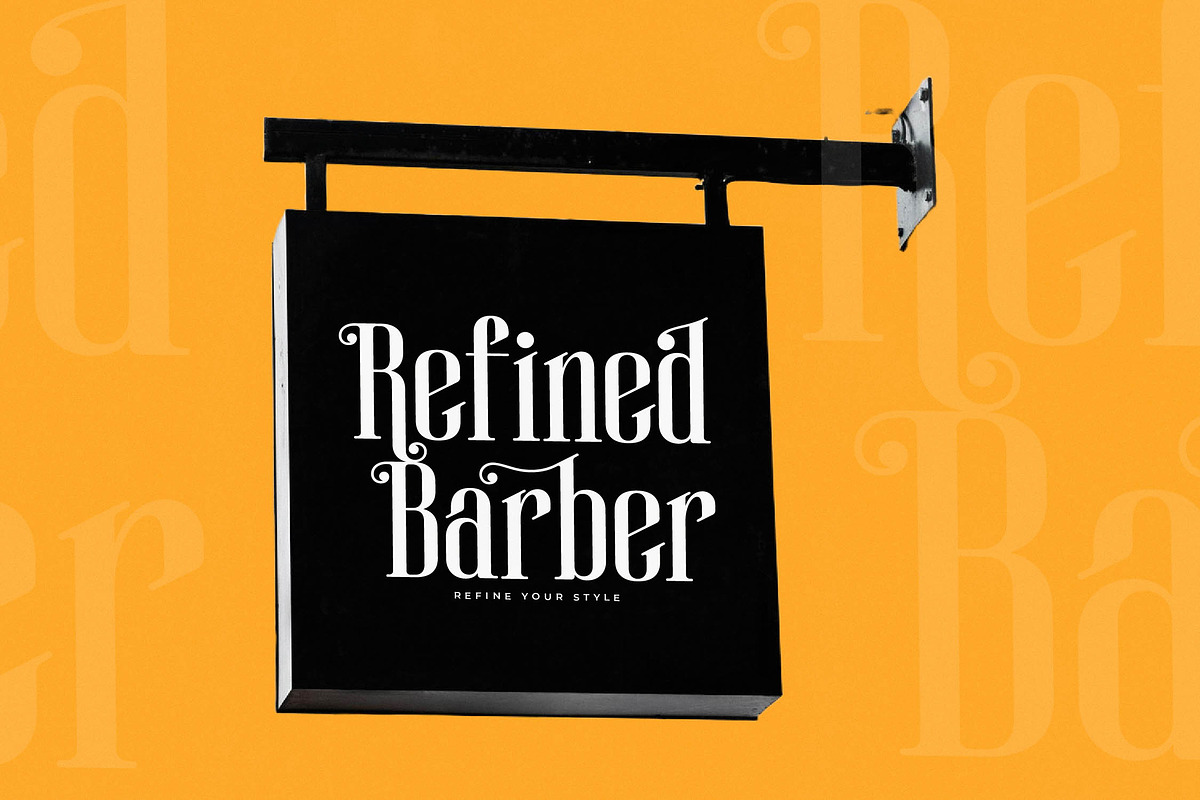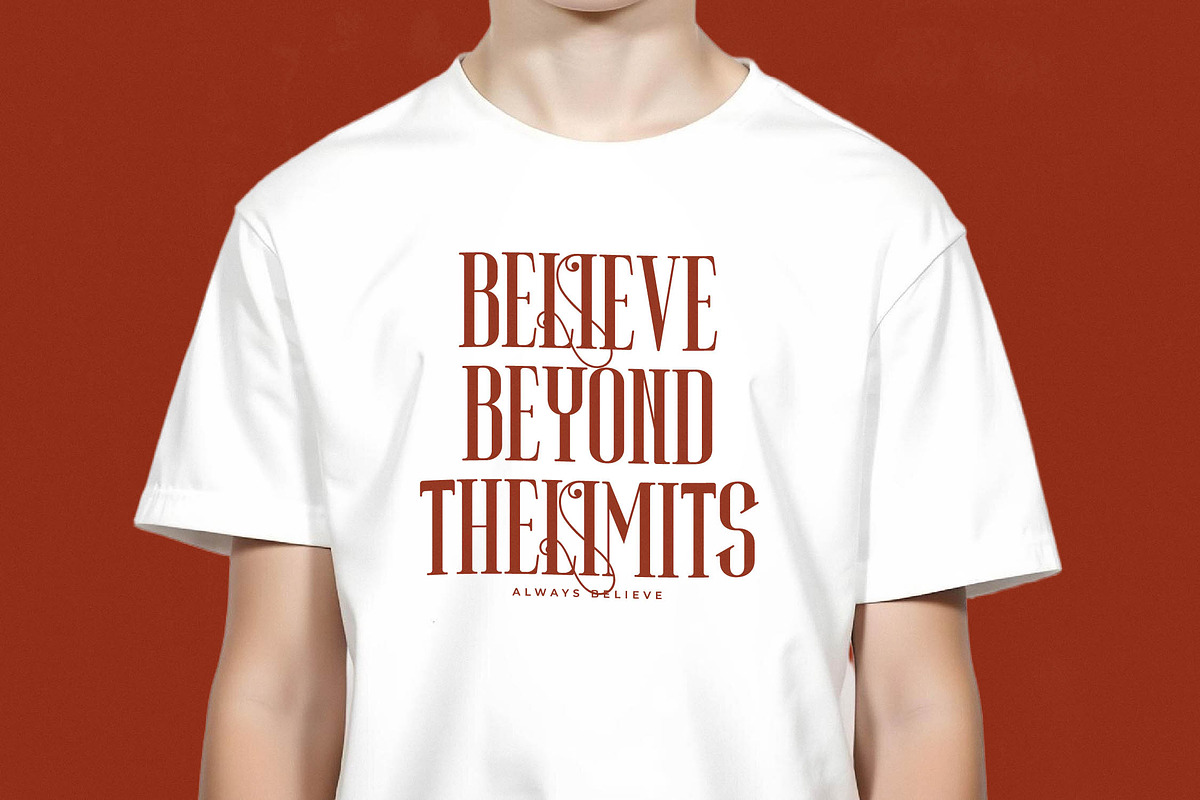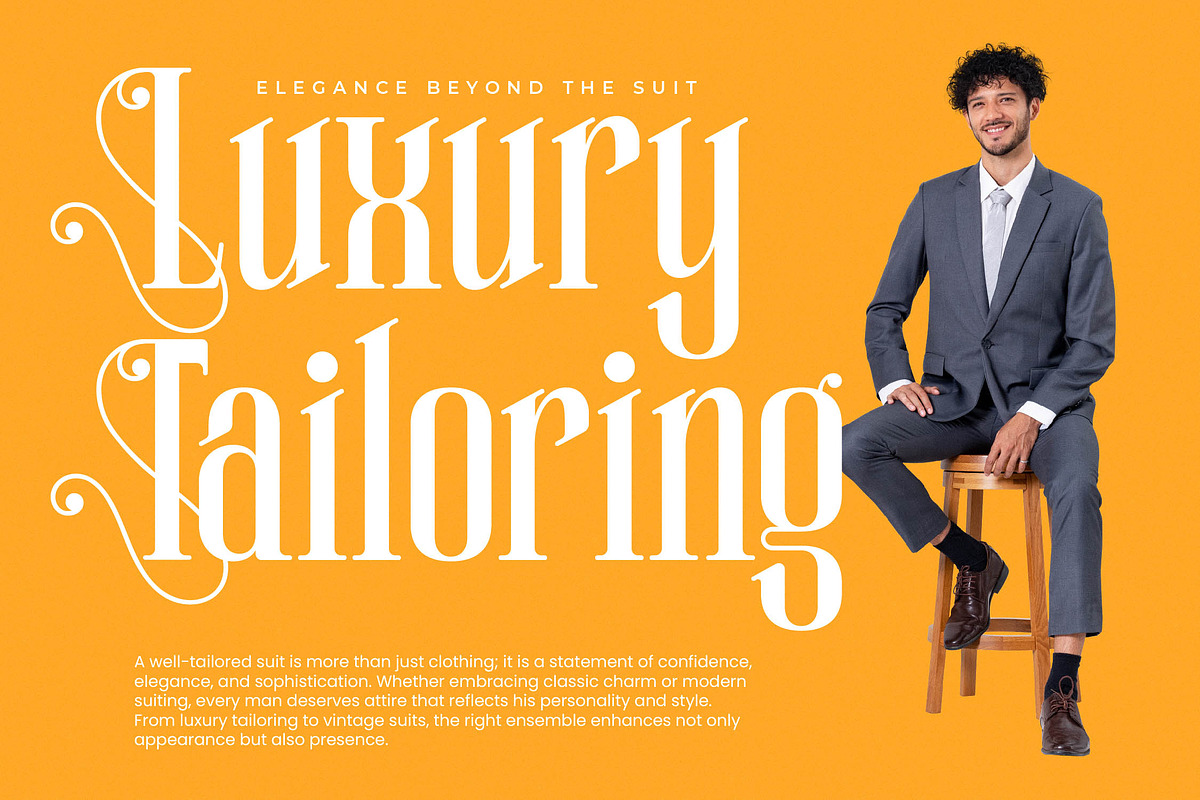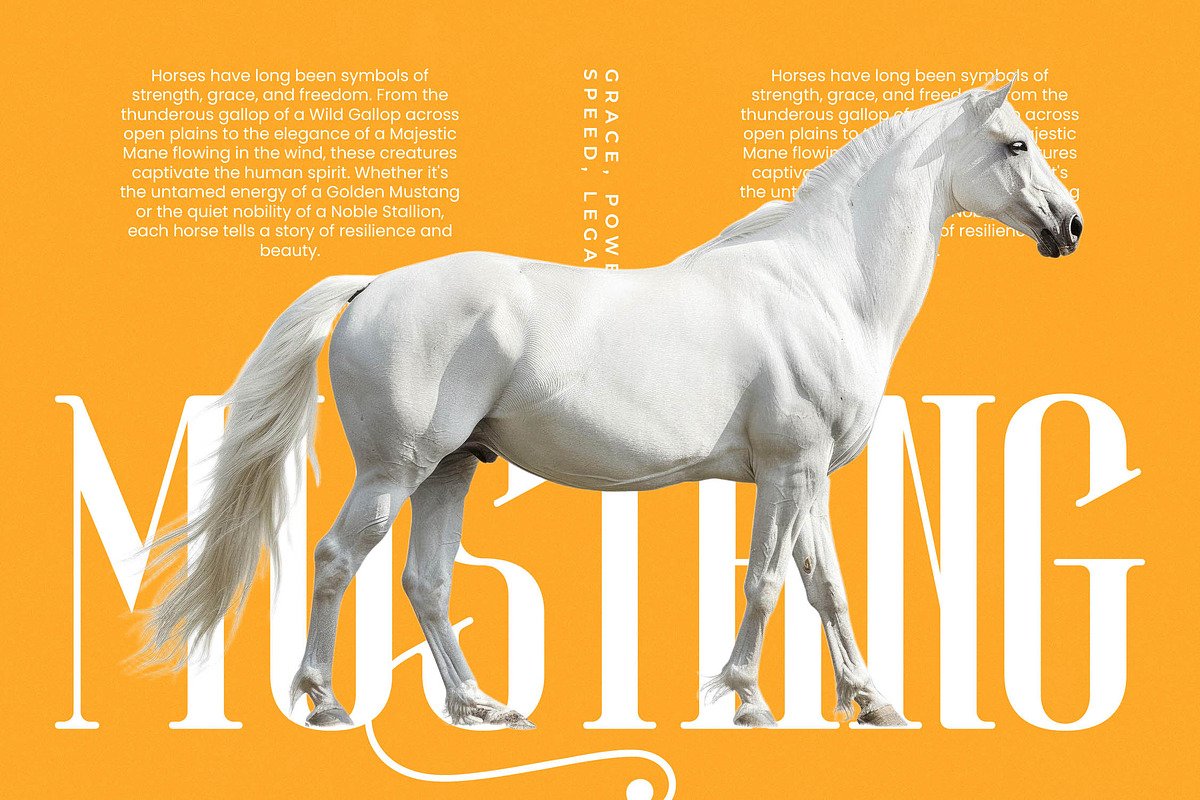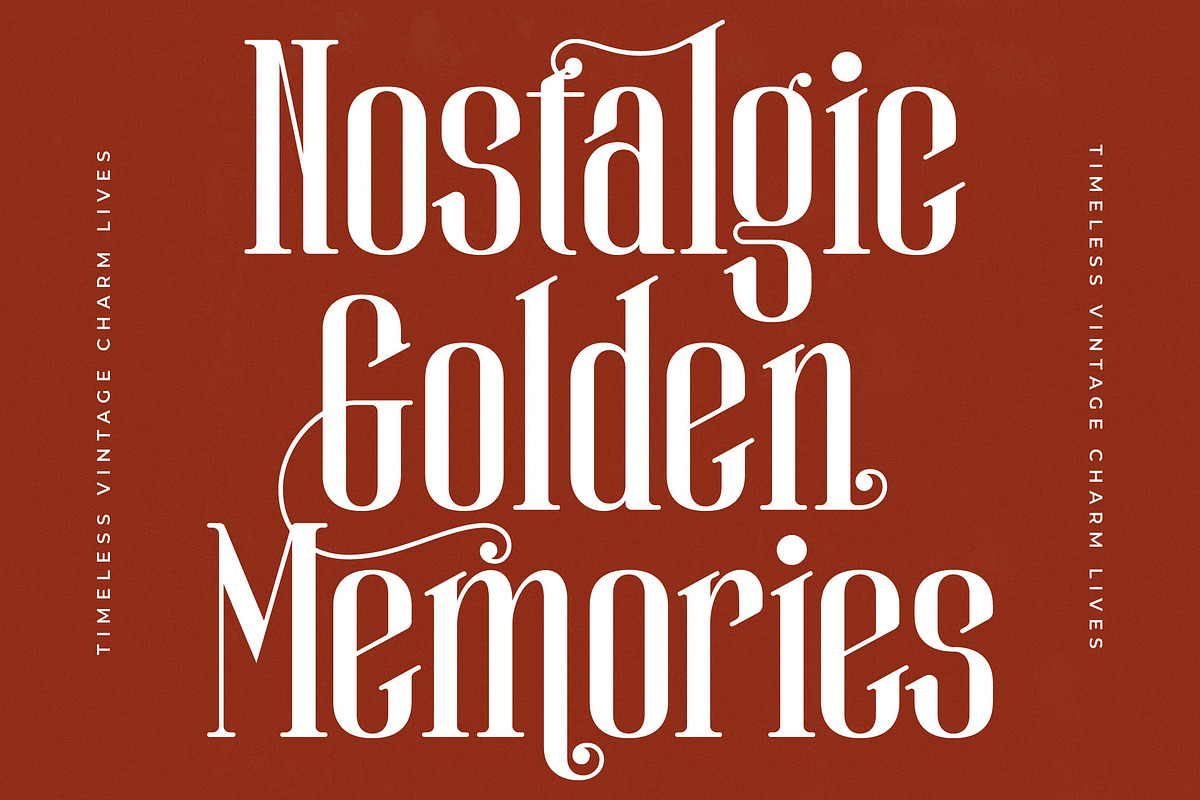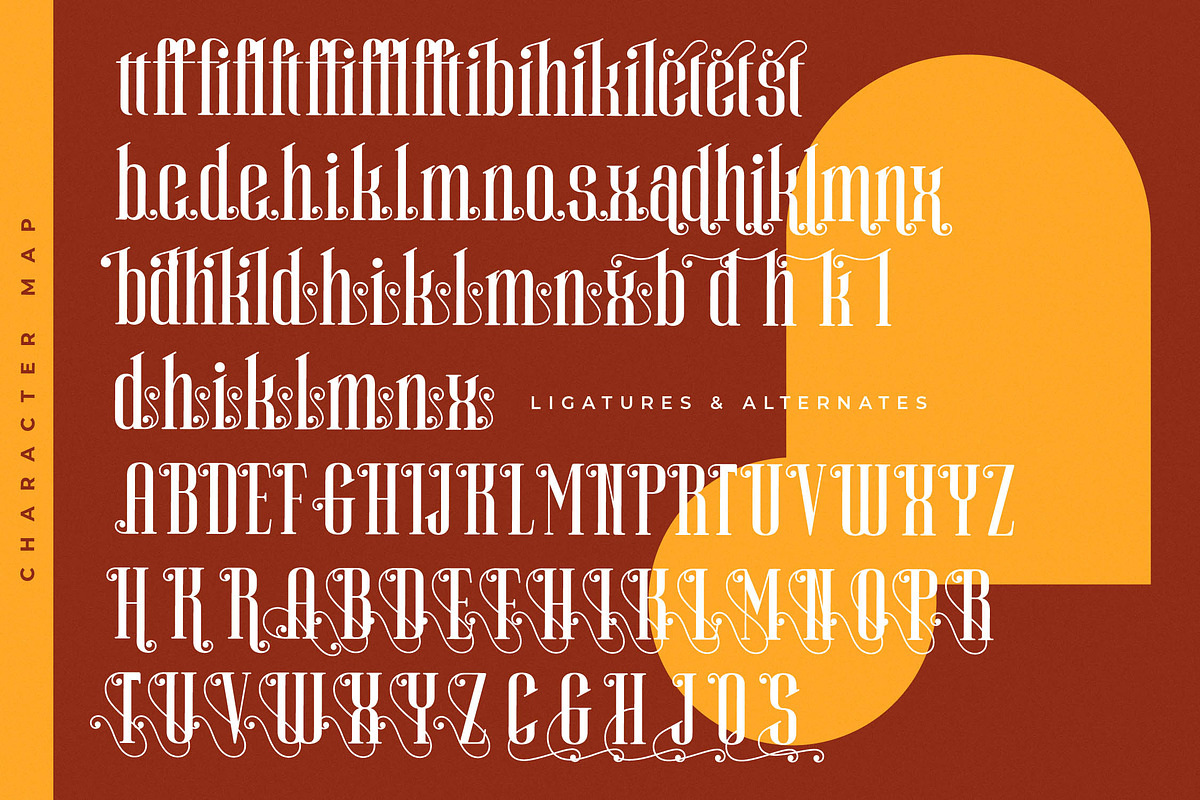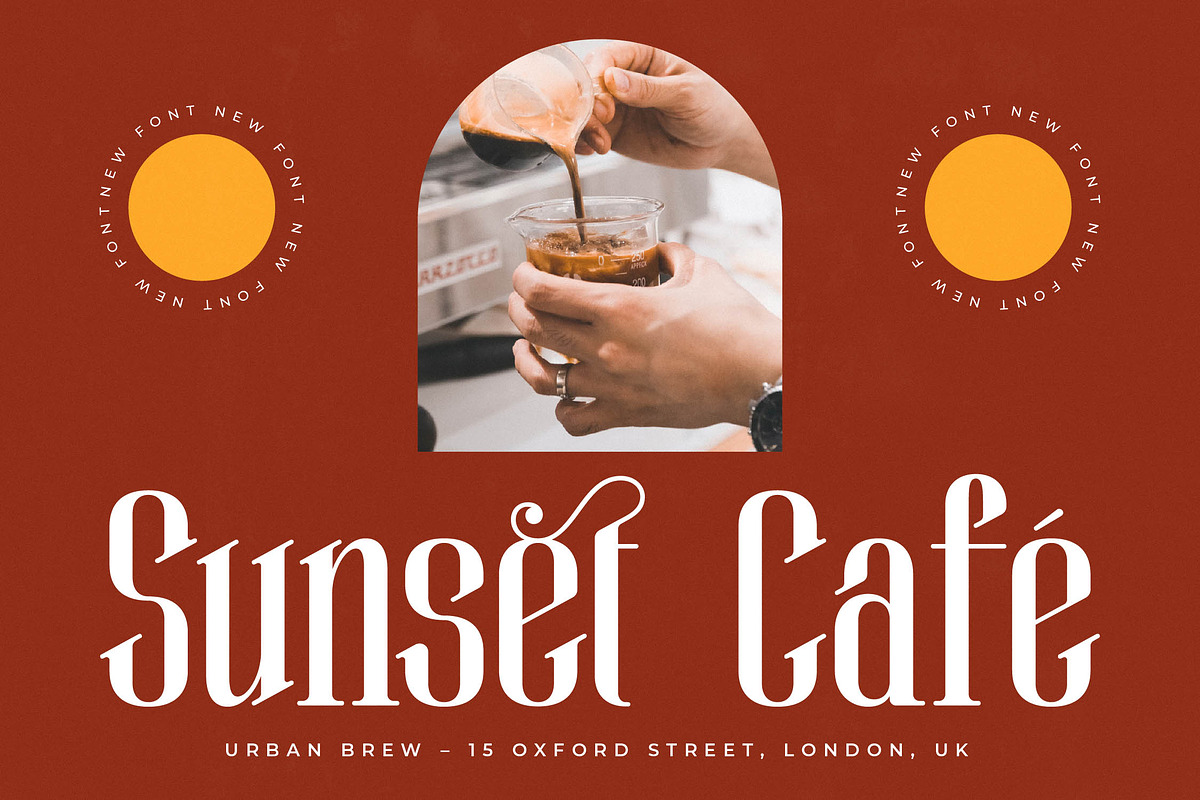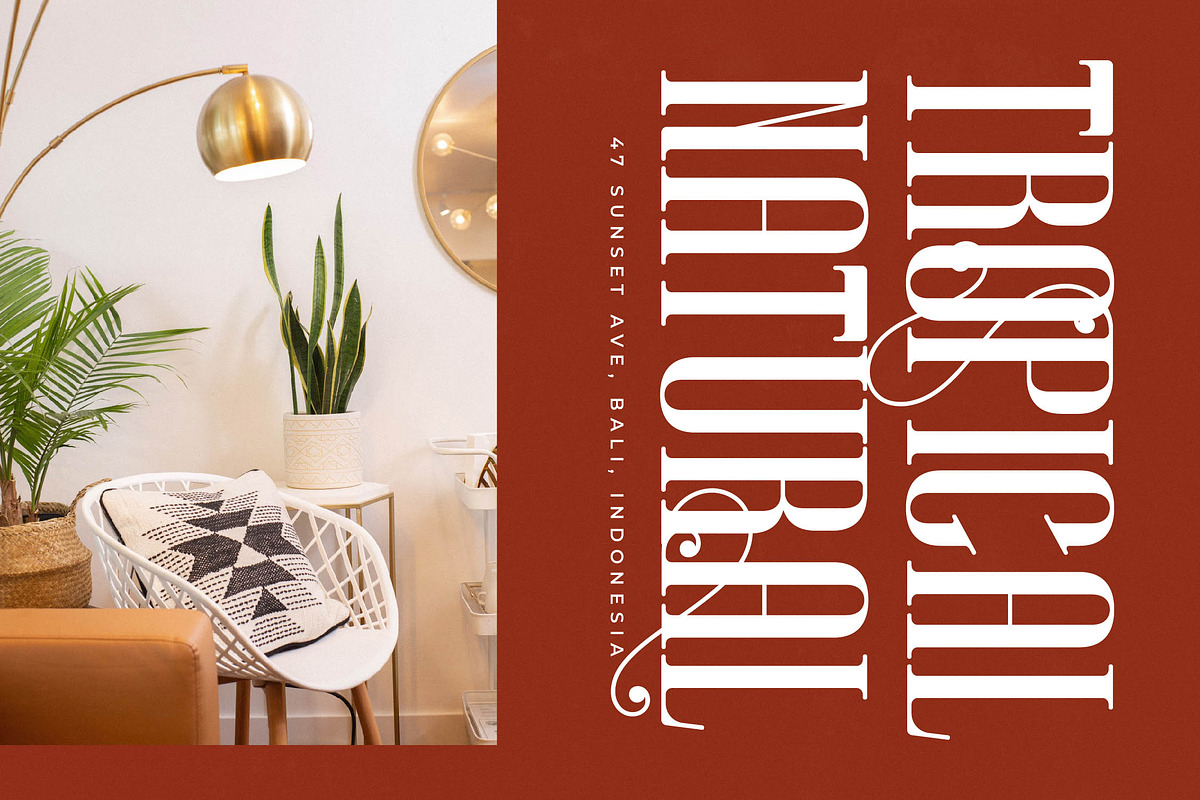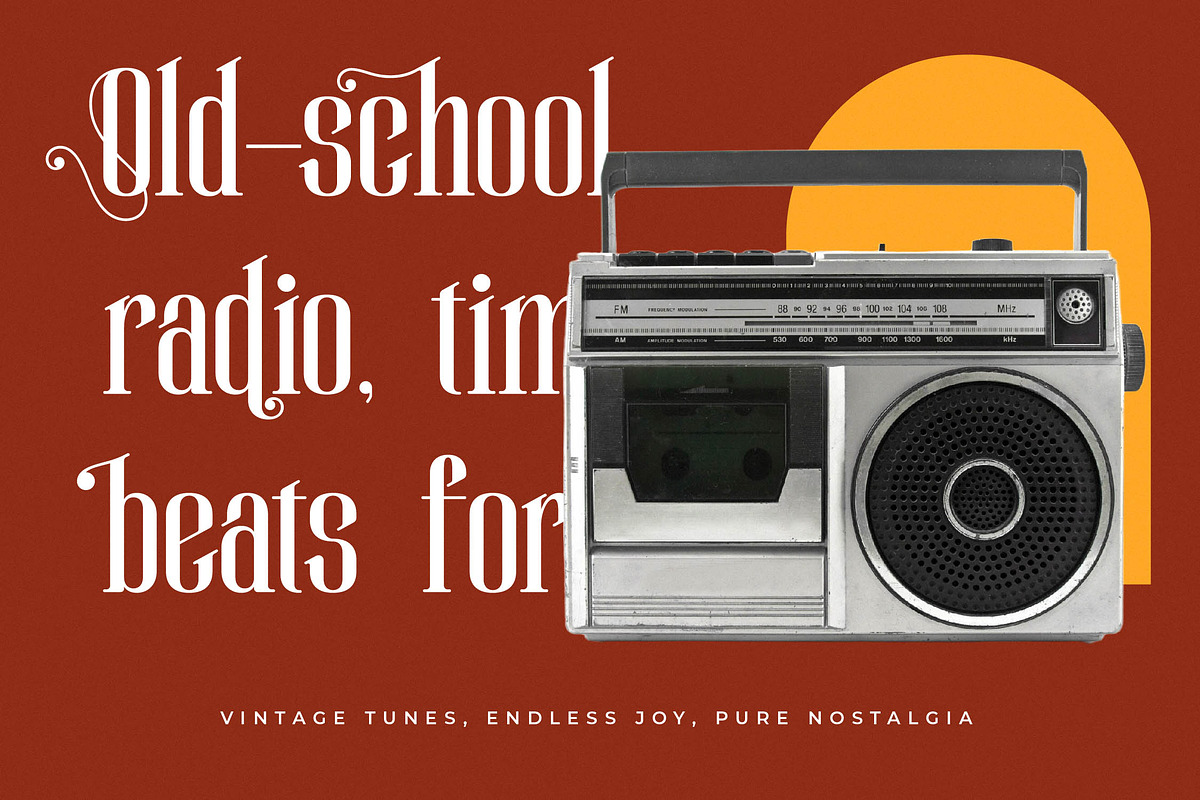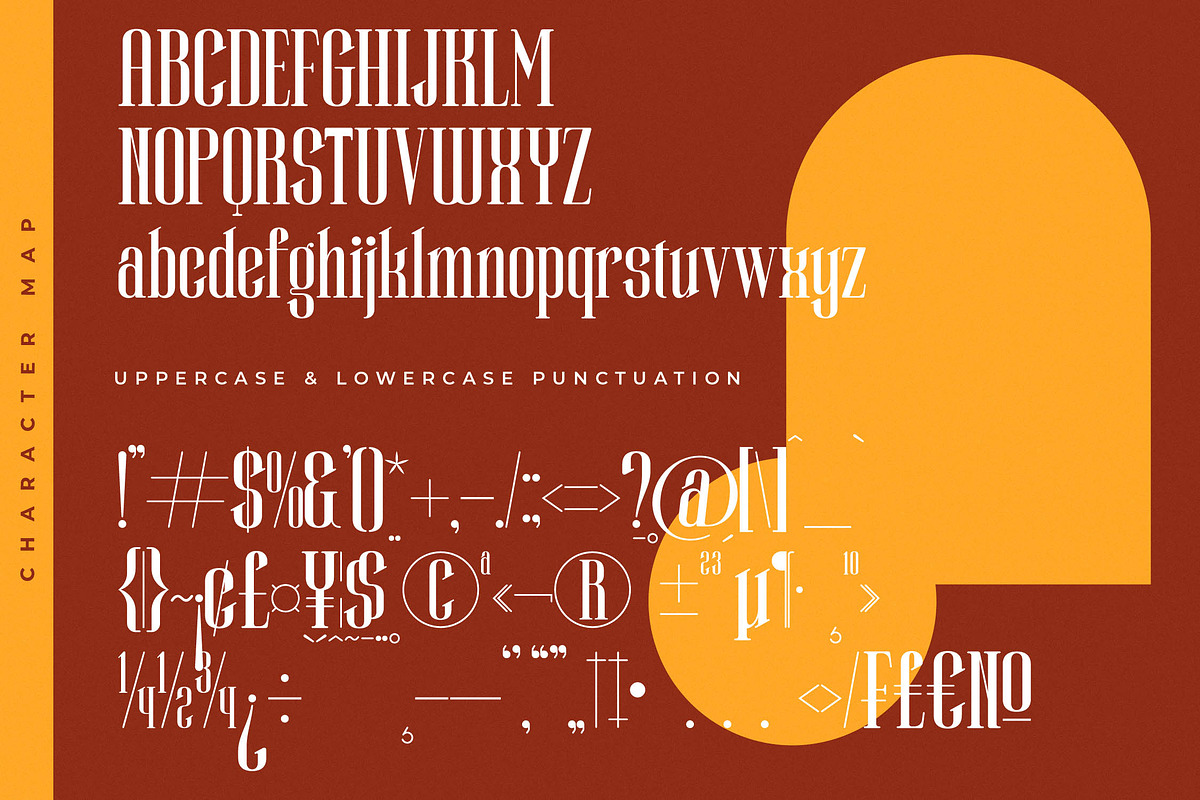
Winstgue Modern Vintage Serif
Elevate your creative projects with Winstgue, a stunningly unique typeface that blends classical elegance with contemporary flair. It is the perfect choice for designers looking to make a bold, sophisticated statement in any visual composition.
Drawing inspiration from the golden hour of desert landscapes and mid-century editorial design, this font captures a sense of timeless wanderlust. Its tall, slender proportions and graceful curves evoke a feeling of grandeur and artistic freedom that transcends ordinary typography.
This modern serif display is defined by its luxury typography and high-contrast serif strokes that command immediate attention. Designed for maximum branding impact, it works seamlessly as an editorial font that bridges the gap between old-world charm and new-age minimalism.
Tapping into the current modern serif trend, this typeface is a masterclass in character-driven typography. It perfectly aligns with the global demand for editorial display fonts that offer both exceptional legibility and a distinct, memorable personality.
Whether you are crafting a high-end logo design or developing a cohesive branding identity, Winstgue excels in every application. It is ideally suited for editorial layouts, luxury packaging, romantic wedding stationery, and avant-garde fashion magazines.
This comprehensive font package includes a wealth of ligatures and alternates that allow for endless creative customization. With over 100 decorative swashes and full multilingual support for international characters, it provides the technical flexibility needed for global design projects.
- Ligature 015 Alternate 100